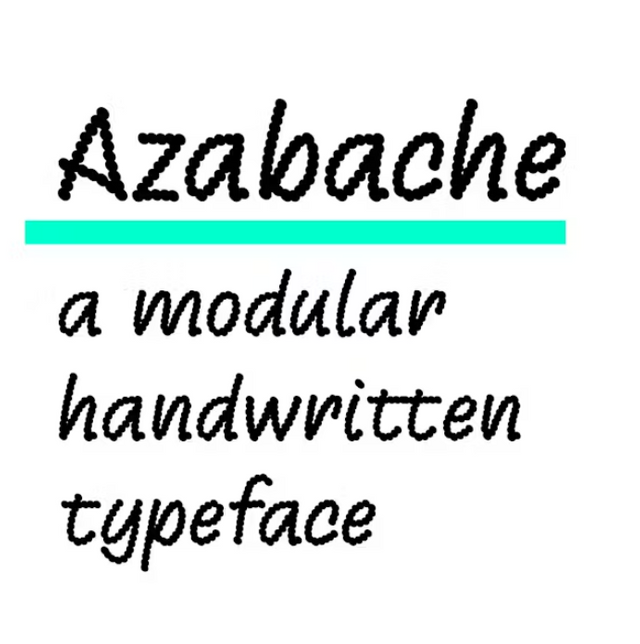
Azabache - A modular handwritten typeface
Azabache
A modular handwritten typeface
Azabache is an open-source font that blends handwritten forms and modular design trends. It was sketched with a trackpad and a custom Processing tool and then translated into oval modules. As a result, its contrast direction counters traditional calligraphy.